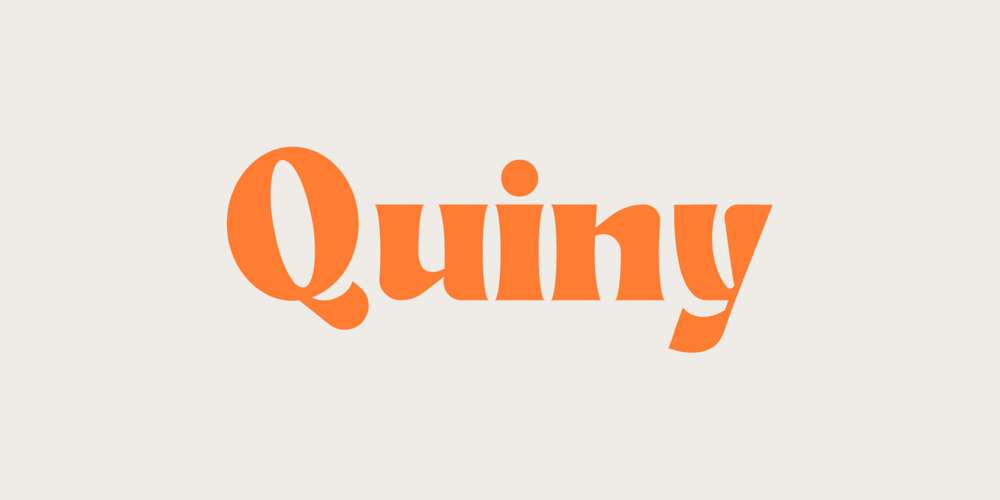
Quiny
Quiny font
Quiny Font Family was designed by Yesaya Amnestian and published by Nestype. Quiny contains 1 styles and family package options. Quiny is built with bold and curvy characters, Perfect if you need fun for your projects.